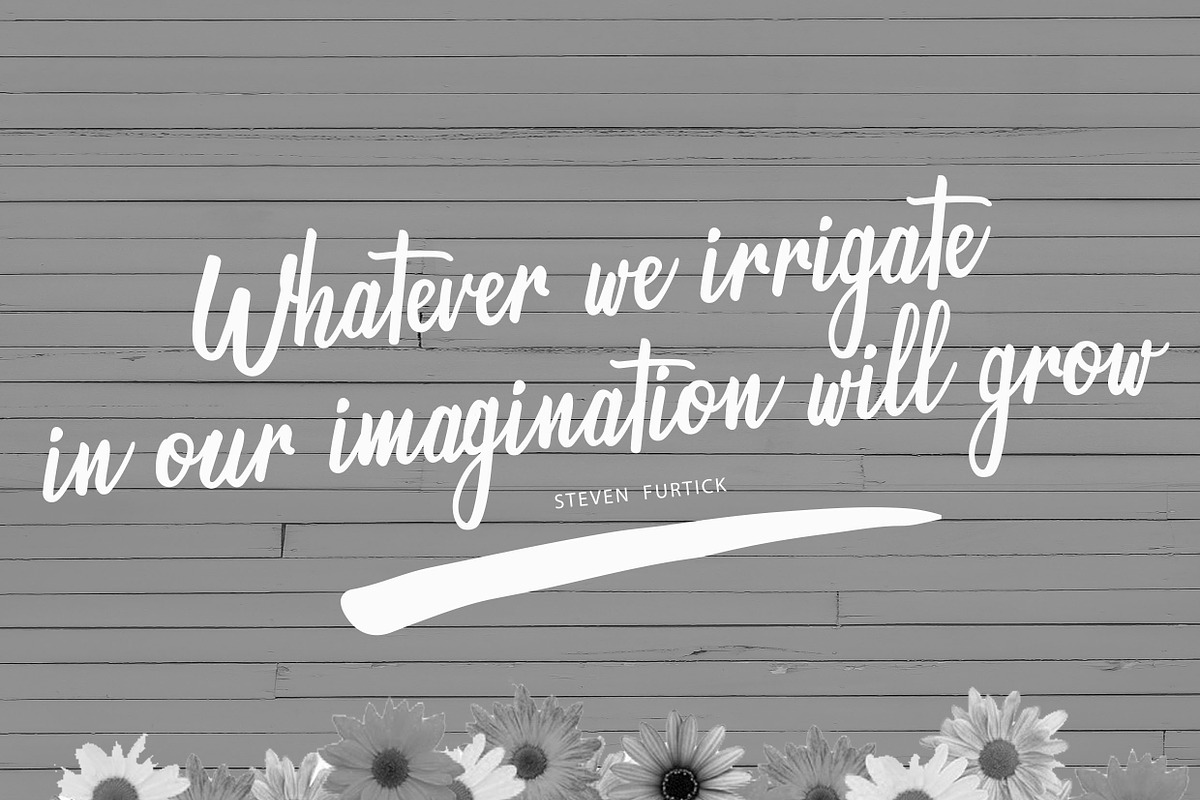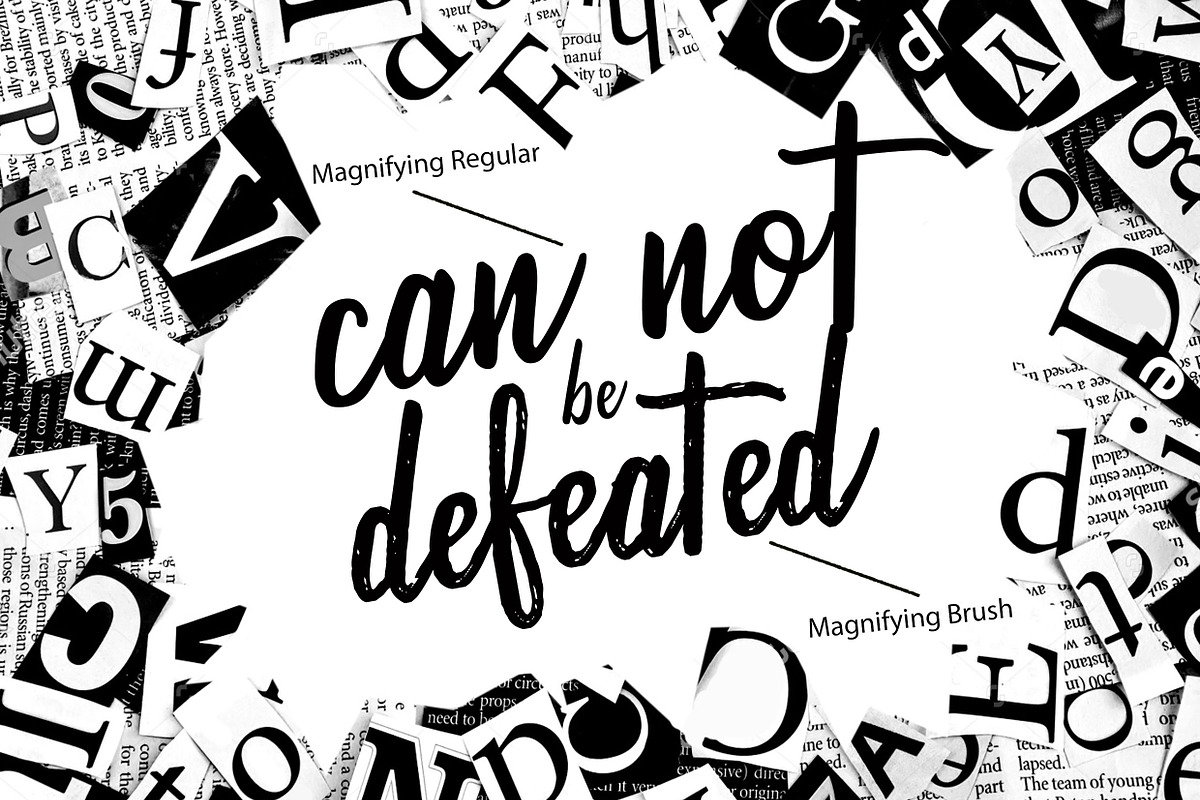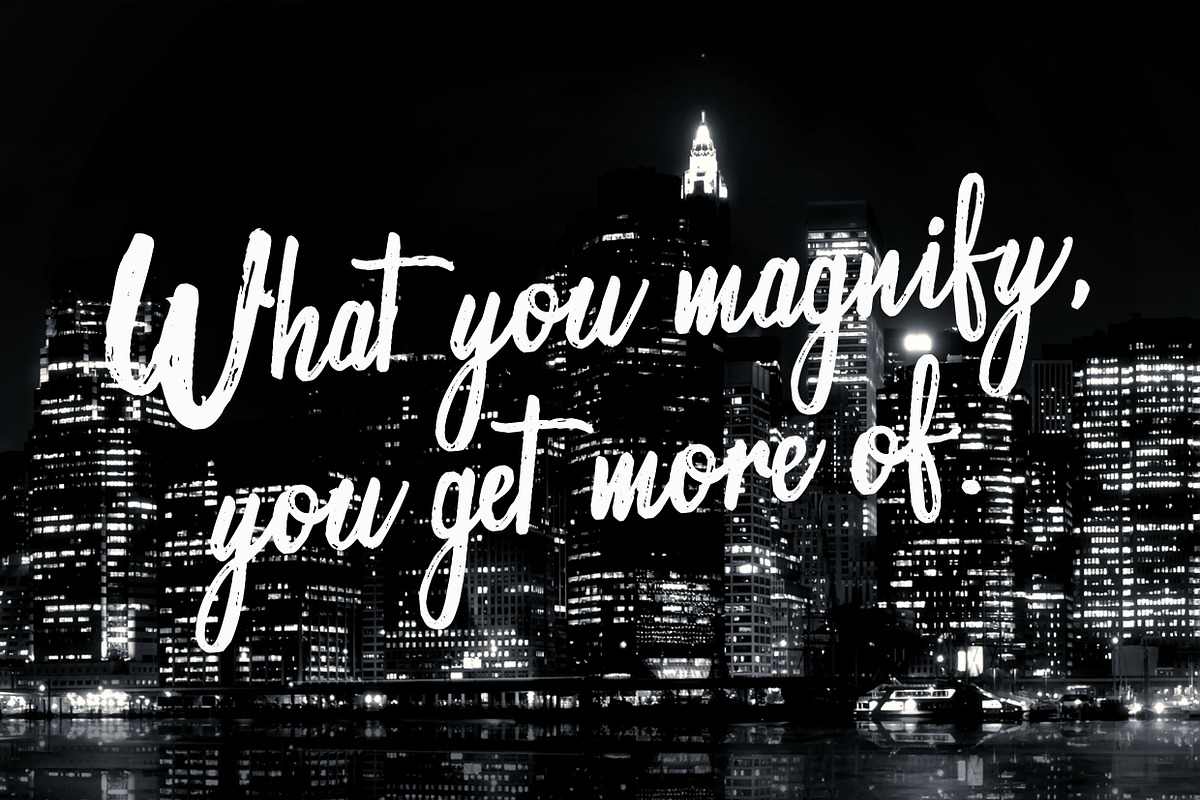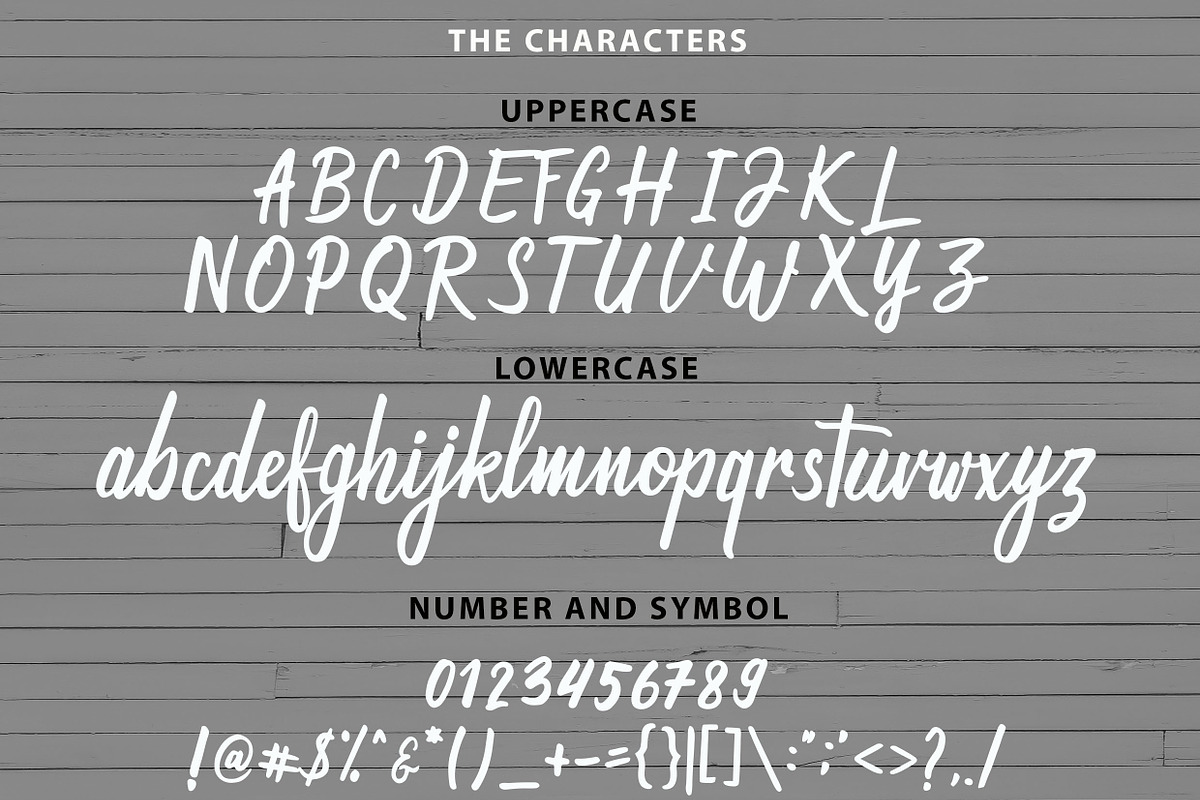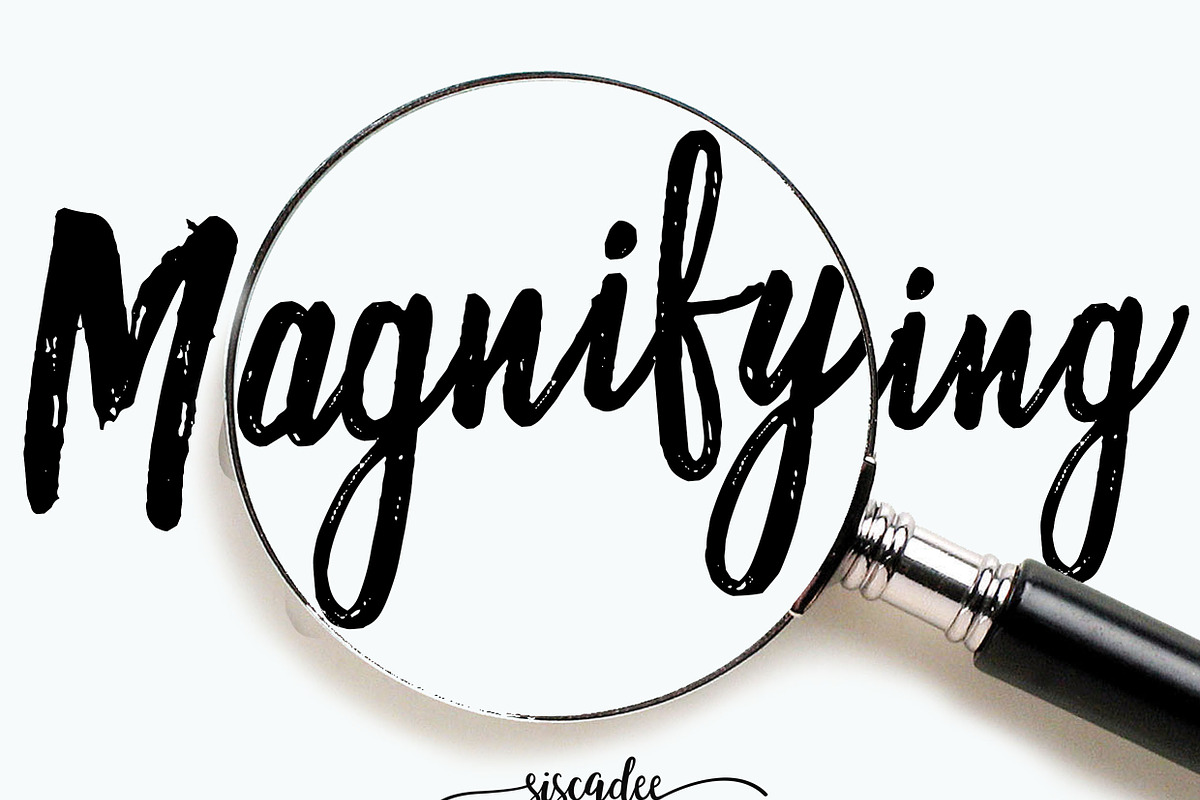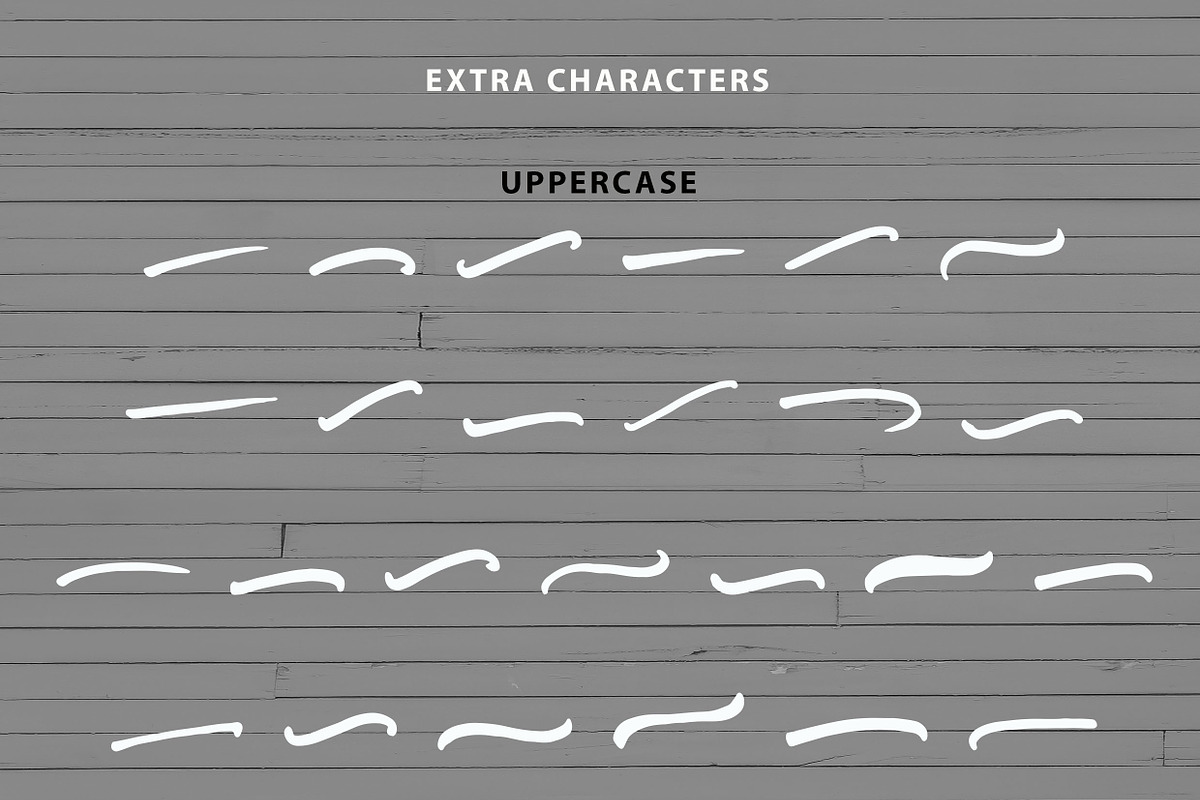
Magnifying Duo Handwritten Font
What you magnify, you get more of
Yes, this is a very great quote for this product. Magnifying duo handwritten font has 2 version, clean and brush. This clean and rustic handwritten font can be your chosen one to create a memorable customized any design!